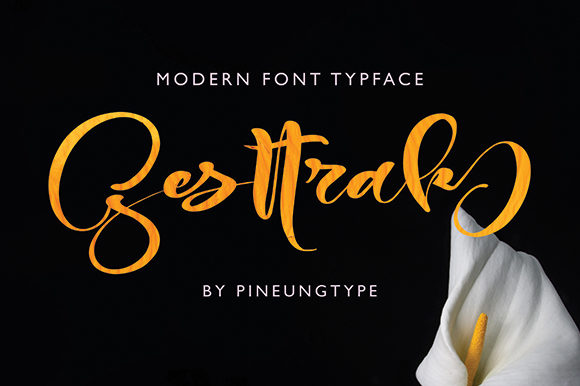
Prepare to be mesmerized by Gesttrak, an extraordinary handwritten font that will unleash your creativity like never before. With its graceful flourishes and captivating charm, Gesttrak is the key to transforming your digital designs into stunning works of art. Step into a world where imagination meets elegance, where every letter dances with personality, and where your words come alive with a touch of magic.
Embark on a creative journey with Gesttrak, and witness how effortlessly it elevates your Instagram posts, social media graphics, and branding materials. Dive into a world of endless possibilities, where your designs exude a touch of sophistication and leave a lasting impression on your audience.
Unleash your inner artist and explore the boundless potential of Gesttrak. Whether you're crafting heartfelt invitations, designing captivating logos, or adding a personal touch to your DIY projects, Gesttrak will be your trusted companion, guiding you towards creative greatness.
Immerse yourself in the beauty of Gesttrak, a script font that captures the essence of handwritten elegance. Its delicate lines, playful curves, and enchanting swashes will captivate your senses, making every word a visual masterpiece.
With Gesttrak, you're not just downloading a font; you're unlocking a gateway to a world of creativity, where your ideas take flight and your designs shine brighter than ever before. Embrace the transformative power of Gesttrak, and let your imagination soar.